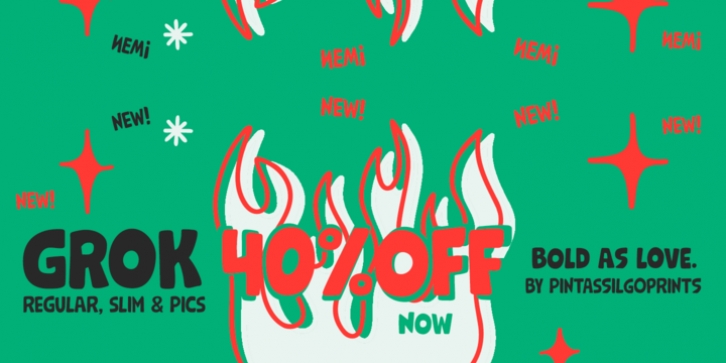
Grok was designed by Erica Jung, Ricardo Marcin and published by PintassilgoPrints. Grok contains 3 styles and family package options. The font is currently #43 in Hot New Fonts.
Bold as love, Grok is a hand-drawn typeface, assertive but soft, showy and friendly.
It's an all caps font with 2 choices for each letter-for a more natural, handlettered look, you know, These different letter options are accessible via keyboard upper- and lower-case keys. Or, simply turn on the contextual alternates feature to automatically cycle the alternates.
Grok comes in two cuts: bold and less-bold. There's yet a nifty picture font with dozens of dingbats to beautify your words now and then.
Perfectly suited for any display use: packaging, signage, apparel, editorial design, logos, web, apps, book covers and the list goes on. Grok it?